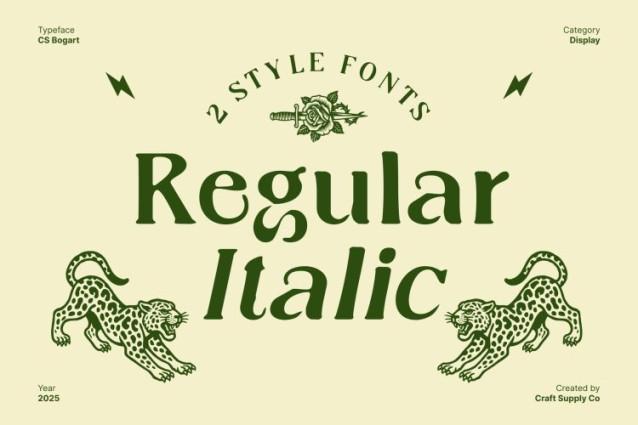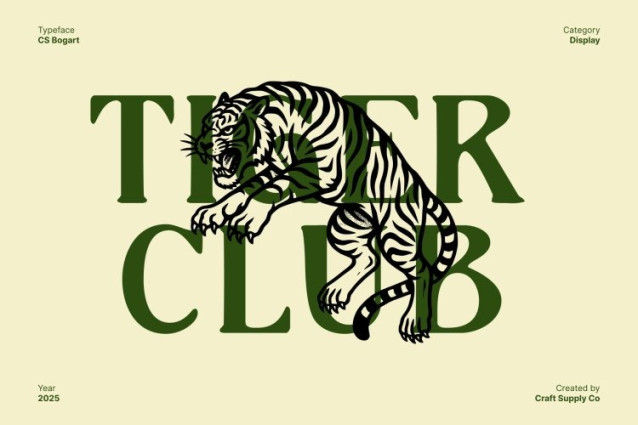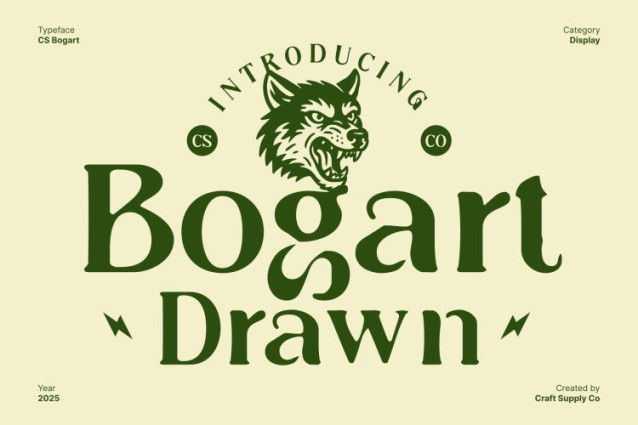
CS Bogart Drawn Font is a modern serif font that blends sharp sophistication with handcrafted artistry. Each letterform features precise, functional shapes that exude confidence and balance, while the drawn handmade effect introduces a touch of human warmth and individuality. This fusion of modern design and artisanal detail makes this font a standout choice for creative professionals seeking elegance with character.
Sharp Structure Meets Expressive Texture
Designed with refined contrast and crisp serifs, this font captures the essence of modern luxury. The subtle drawn texture softens its precision, adding depth and dimension that enhance visual interest. This interplay between structured form and organic texture creates a harmonious flow, making the typeface feel dynamic and visually captivating.
Perfect for Luxury Branding and Editorial Design
This font shines in high-end applications such as branding, editorial layouts, and poster design. Its clean yet expressive style makes it ideal for fashion magazines, packaging, or identity systems that demand both refinement and originality. The handmade effect elevates its sophistication, ensuring every headline or logo carries an authentic artistic flair.
Versatility with a Modern Soul
Whether used for bold titles or delicate typographic compositions, this font maintains clarity, elegance, and emotional impact. It bridges the gap between digital precision and human craftsmanship a perfect choice for designers who value subtle luxury, and timeless appeal.